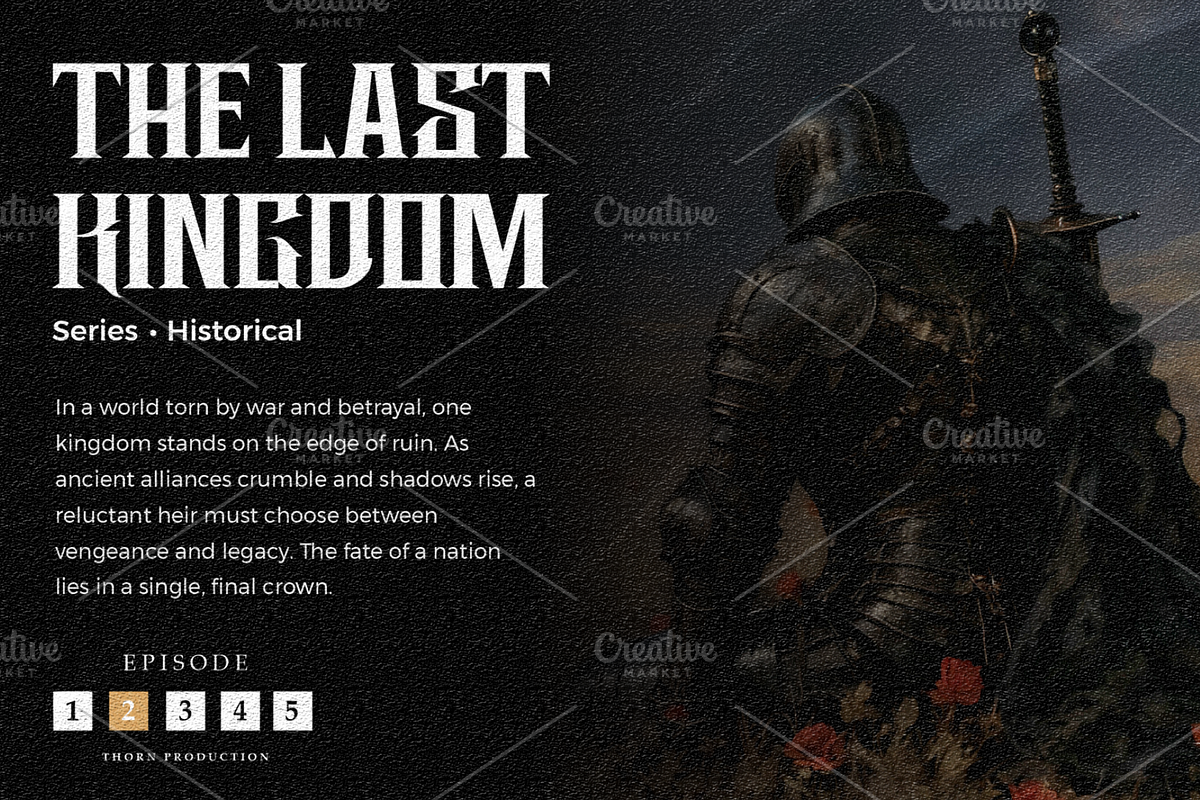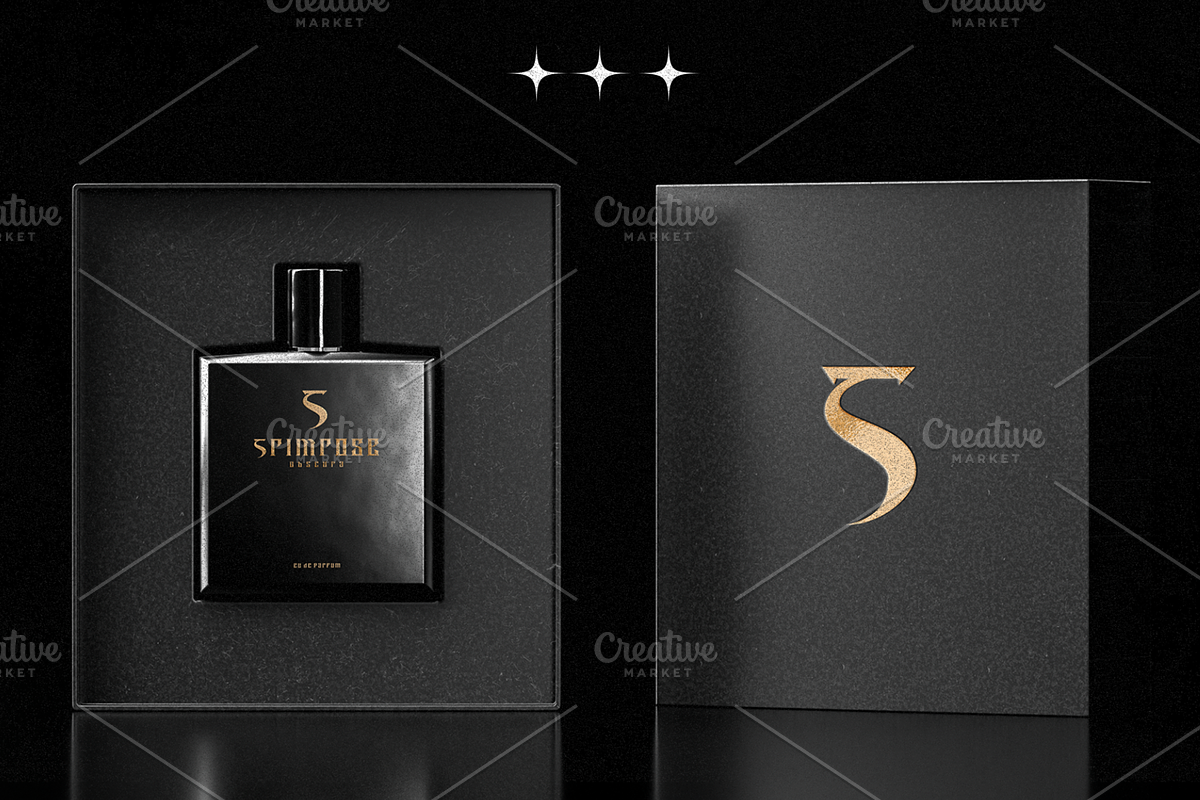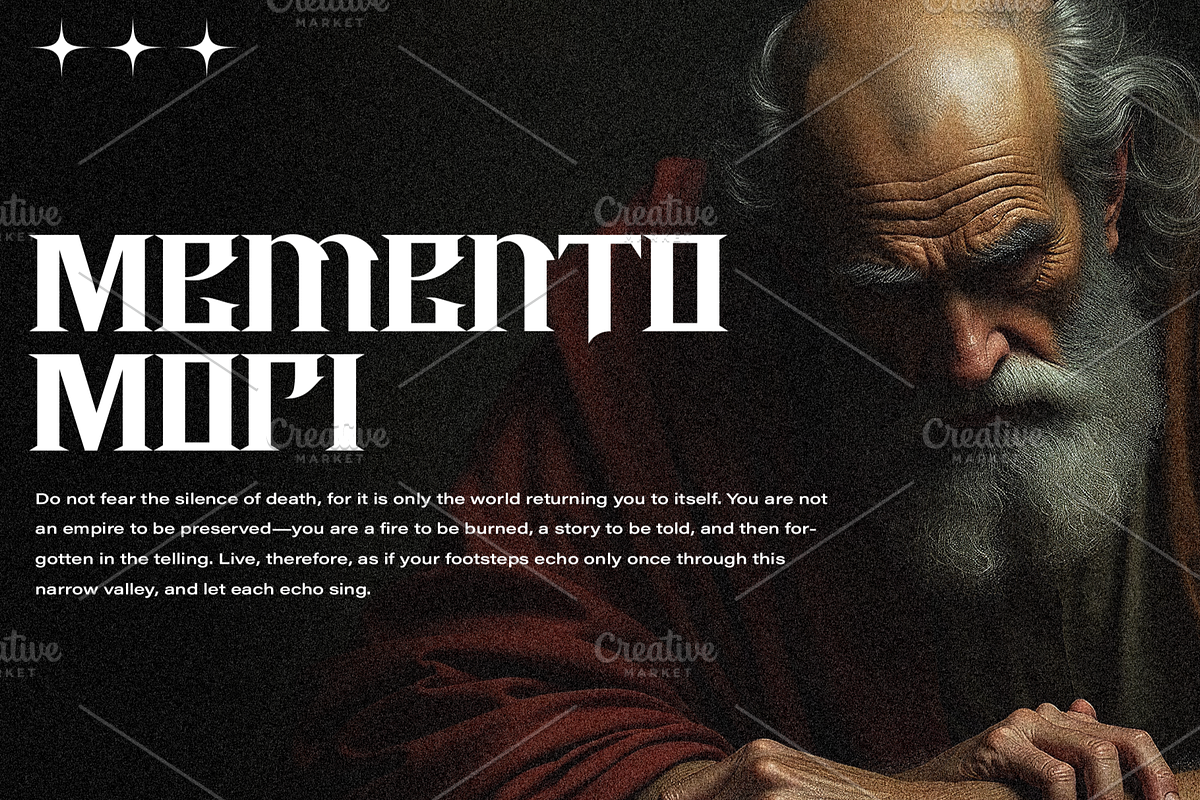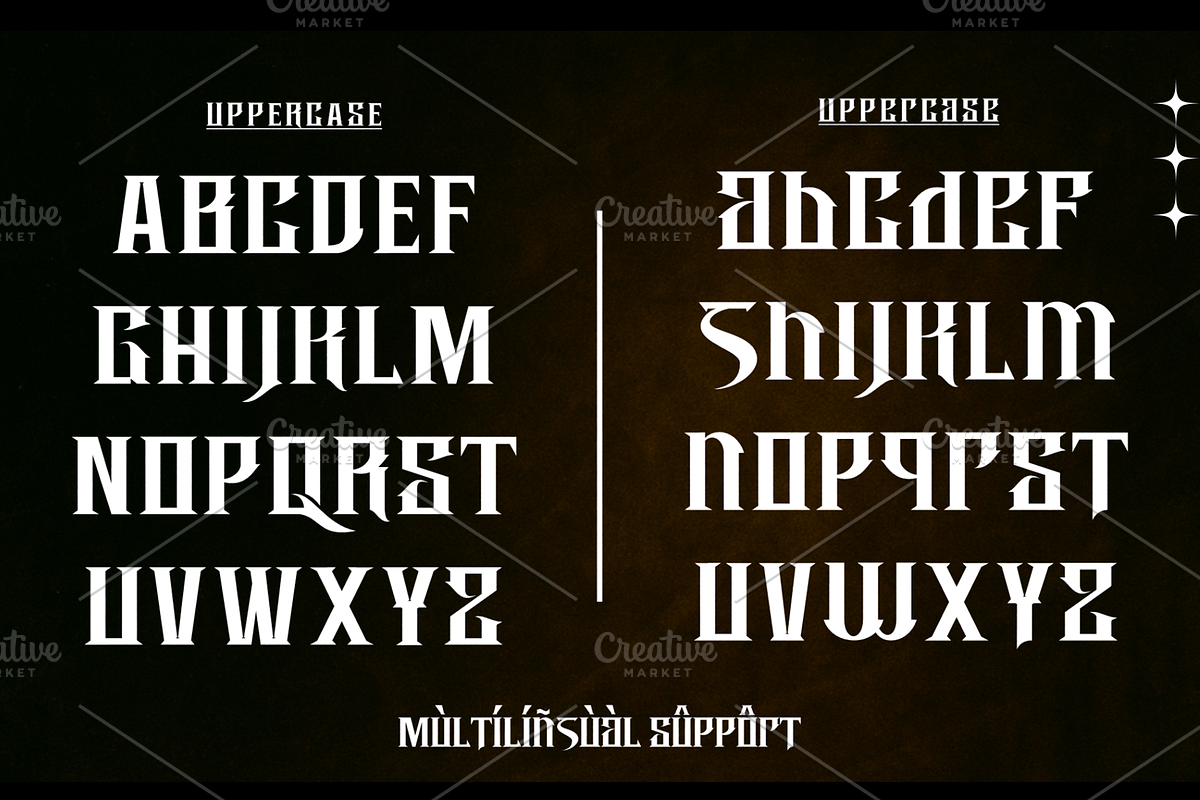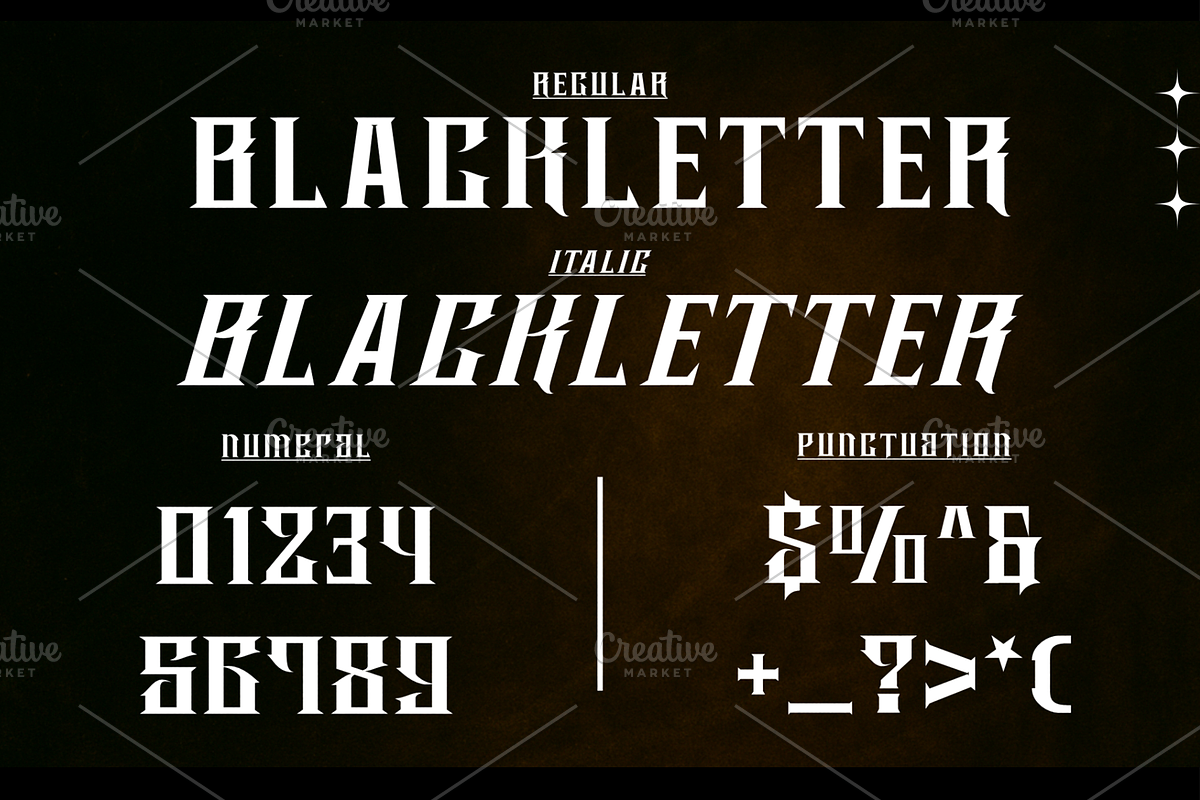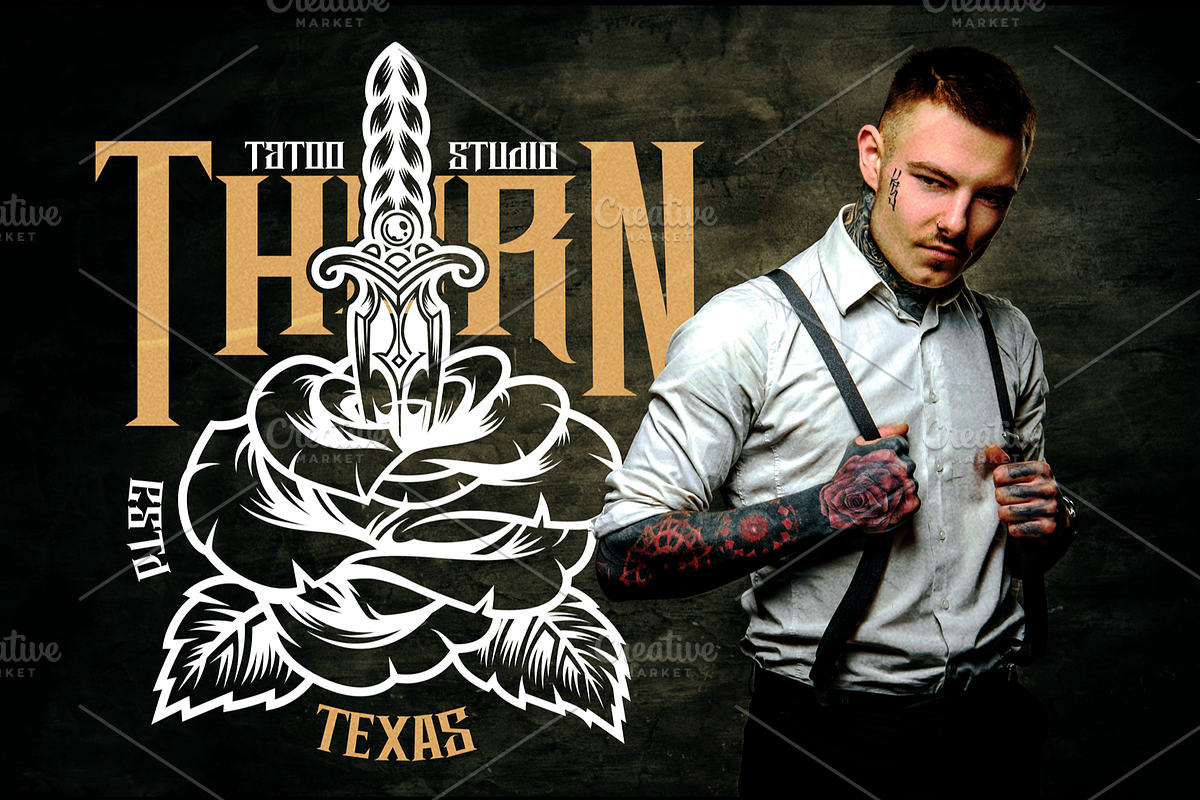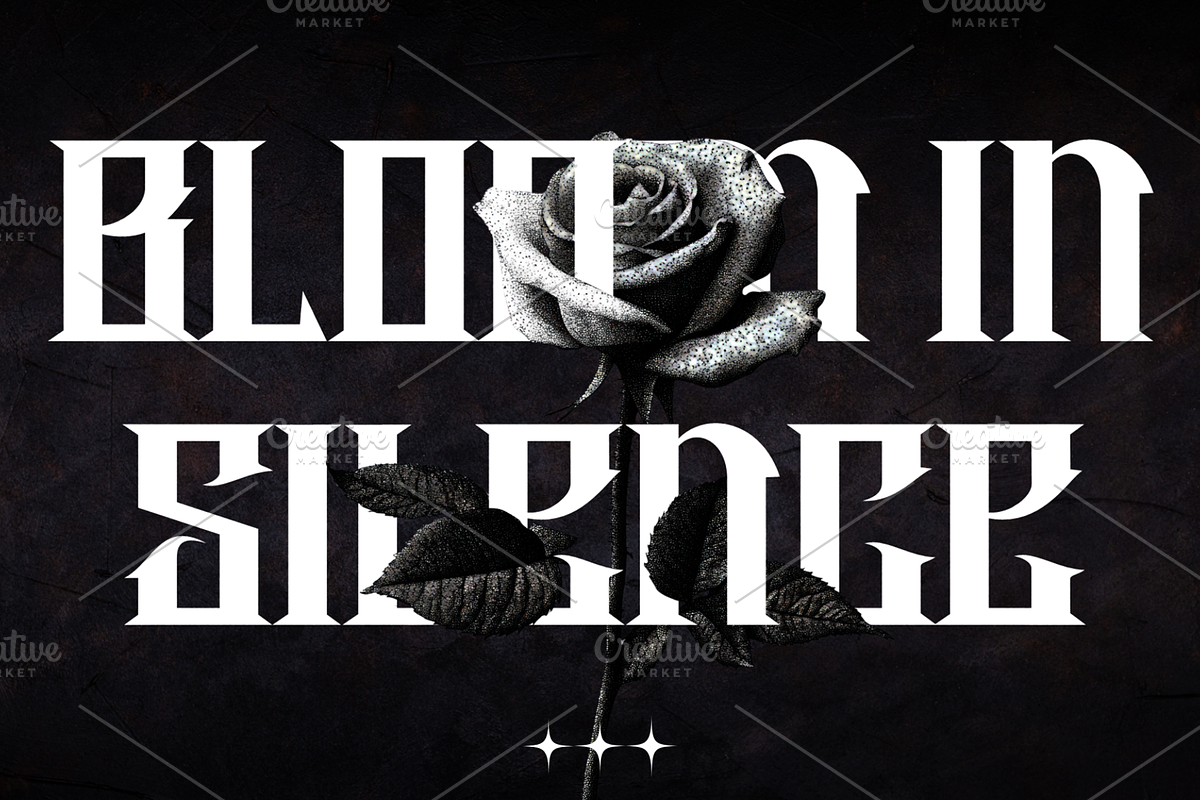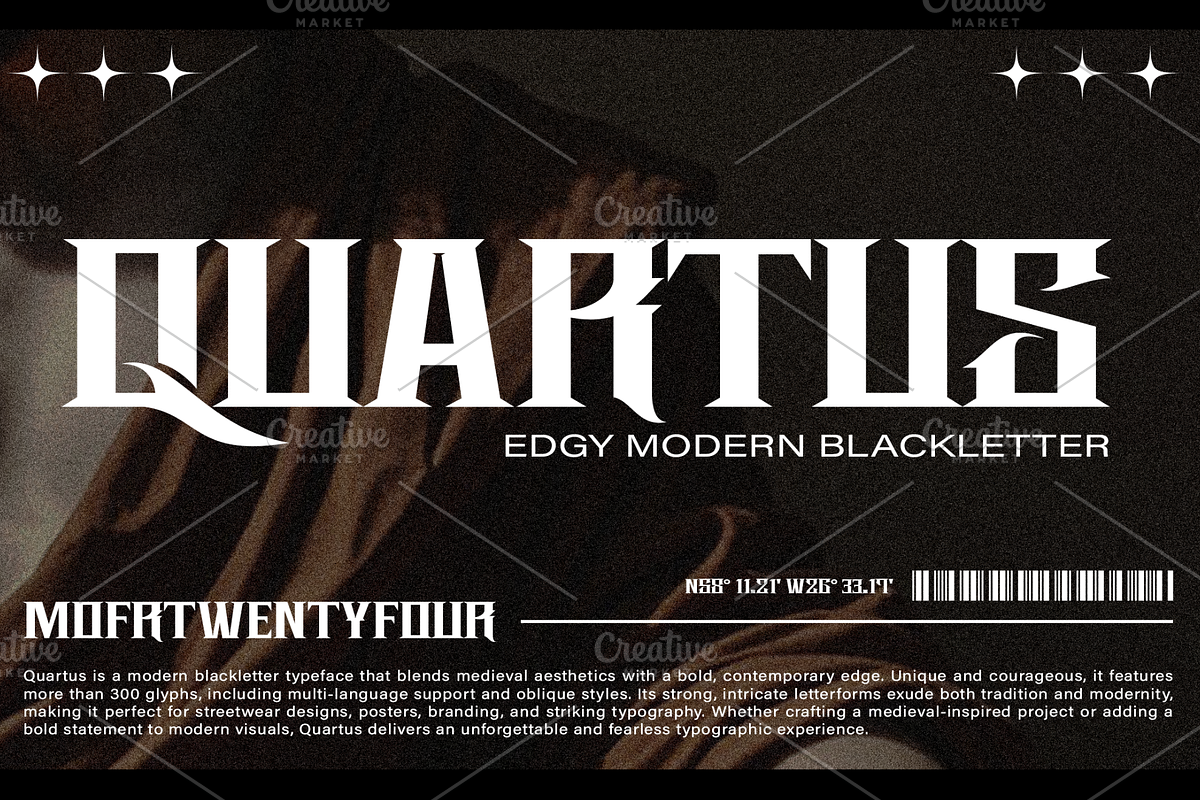
Quartus - Edgy Modern Blackletter
Quartus is a modern blackletter typeface that blends medieval aesthetics with a bold, contemporary edge. Unique and courageous, it features more than 300 glyphs, including multi-language support and oblique styles. Its strong, intricate letterforms exude both tradition and modernity, making it perfect for streetwear designs, posters, branding, and striking typography. Whether crafting a medieval-inspired project or adding a bold statement to modern visuals, Quartus delivers an unforgettable and fearless typographic experience.